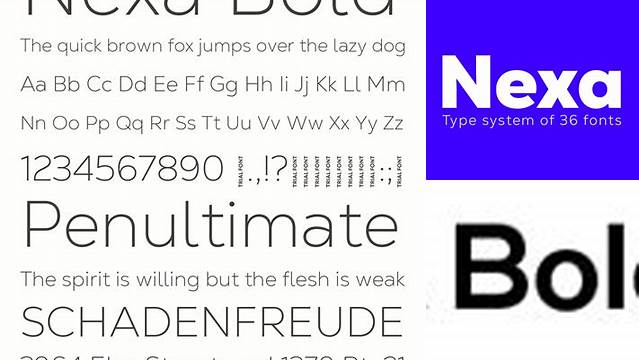
Hey guys! Ever stumbled upon a font and just knew you had to have it? That's how I felt when I first saw Nexa Bold. It's that perfect blend of modern and clean, making it a total standout for everything from headlines to body text. And the best part? You can get a Nexa Bold font free download for Mac! Seriously, who doesn't love a great font without breaking the bank? In this article, we're diving deep into how to snag the Nexa Bold font free download for Mac, where you can use it, and why it's such a fantastic choice for your design projects. So, buckle up, and let's get this font party started!
H2: Why Nexa Bold is the Font You Need (And How to Get It Free for Mac)
So, what makes Nexa Bold so special? Well, for starters, it's incredibly versatile. This font family, known for its sleek and contemporary vibe, seamlessly fits into a wide range of design projects. Whether you're crafting a killer website, designing eye-catching marketing materials, or simply sprucing up your personal documents, Nexa Bold has got you covered. Its clean lines and strong presence make it a go-to choice for grabbing attention and conveying a sense of professionalism. Now, let's talk about the golden ticket: the Nexa Bold font free download for Mac. Finding a reliable source for a free download is crucial. You want to ensure you're getting a legitimate version that's safe to use. Many websites offer the Nexa Bold font free download for Mac, but always double-check the site's reputation and reviews. Look for trusted font platforms or design resources that offer the font as part of a free bundle or through a promotional offer. Once you've found a trustworthy source, the download process is usually straightforward. You'll likely receive a zip file containing the font files. Extract these files, and then you can install the font on your Mac. It's as easy as a few clicks, and boom, Nexa Bold is ready to roll on your Mac! Installing the font involves opening the Font Book application on your Mac and adding the font files. This process integrates the font into your system, allowing you to access it in various applications like Microsoft Word, Adobe Photoshop, and more. Once installed, Nexa Bold becomes a permanent fixture in your font library, ready to elevate your design projects whenever inspiration strikes.
H2: Where to Use Your New Nexa Bold Font (Mac Edition)
Okay, you've got your Nexa Bold font free download for Mac – now what? The possibilities are pretty much endless, guys! This font's versatility means you can use it in a ton of different projects. Let's break down some popular applications and design scenarios. First off, think about your website. Nexa Bold is a fantastic choice for headlines, subheadings, and even body text. It provides a clean, modern look that's super readable. Plus, it works great on both desktop and mobile, ensuring a consistent visual experience for your users. Next up, consider all your marketing materials. Brochures, flyers, posters, and social media graphics – Nexa Bold can bring a touch of sophistication to all of them. Its strong presence makes it ideal for grabbing attention and highlighting important information. For those of you into content creation, Nexa Bold is a winner for creating visually appealing documents. Think reports, presentations, and ebooks. It's easy to read and lends a professional touch to your written content. If you're a student, you can totally use the Nexa Bold font free download for Mac for your assignments and projects. It will add a touch of elegance to your documents, making them look polished and professional. For anyone working with graphic design software, like Adobe Photoshop or Illustrator, Nexa Bold is a total must-have. It’s great for creating logos, icons, and other design elements that need a modern, clean aesthetic. Even for personal use, you can use Nexa Bold to create stylish invitations, greeting cards, or even personalize your email signatures. The font’s versatility and readability make it perfect for various creative endeavors. So, once you've secured your Nexa Bold font free download for Mac, get creative and experiment!
H2: Comparing Nexa Bold to Similar Free Fonts
So, you're on the hunt for the Nexa Bold font free download for Mac, but what if it's not quite the right fit? There are tons of other awesome fonts out there. Let's take a look at some similar free fonts that could be great alternatives. One popular option is Montserrat. Much like Nexa Bold, Montserrat is a geometric sans-serif font, known for its clean and modern feel. It's also super versatile and works well in various design applications. Another great alternative is Open Sans. This font is very readable and perfect for both headlines and body text, and it is a great option for websites and long-form content. Next up, we have Lato. Known for its friendly and approachable look, Lato is also a sans-serif font, that's excellent for creating a sense of warmth in your designs. Then there's Roboto. Roboto is a versatile font created by Google, designed to be readable and work well across different devices and applications. Also, check out Poppins. This font is another geometric sans-serif that’s known for its clear and modern appearance. It’s excellent for both headings and body text. When deciding which font is right for your project, think about your overall design goals. Consider the mood you want to create and the readability needed for the project. Also, think about the specific characteristics of each font. For instance, some fonts may be bolder, while others may be more delicate. Check the various font weights and styles available. Most font families offer different weights, such as light, regular, bold, and black, and styles, like italic, to provide a wide range of design choices. And lastly, think about compatibility. Ensure that the font you choose is compatible with the software and devices you will be using.
H2: Installing and Managing Fonts on Your Mac: Beyond Nexa Bold
So, you've got your Nexa Bold font free download for Mac, but how do you get the most out of your font collection on your Mac? Let's talk about managing and installing fonts. As we mentioned before, the Font Book app is your best friend. It comes pre-installed on your Mac. You can add fonts by dragging font files (TTF or OTF) into the app, or by using the “+” button to select font files. Font Book lets you easily browse, preview, and organize all your fonts. You can also create font collections to group fonts by style, project, or any way that helps you stay organized. Beyond Font Book, there are other ways to manage your fonts. Some designers like using dedicated font management software, like FontExplorer X or RightFont. These tools offer advanced features, such as font activation and deactivation, conflict resolution, and organization, but aren’t necessary for casual users. Another great feature is the ability to preview fonts easily. You can view the font's various styles, weights, and characters. Most font managers and Font Book provide options for previewing fonts in different sizes and contexts, making it easy to see how each font will look in your designs. And most importantly, make sure you know how to handle font conflicts. Font conflicts can sometimes occur when you install multiple versions of the same font. Font Book will usually detect conflicts and help you resolve them by choosing which version to keep. Always keep your fonts organized and backed up. Backing up your fonts ensures you won’t lose them if you experience a system crash or data loss. Also, consider where you store your fonts. Create a dedicated folder in your computer's drive to keep them organized. And lastly, make sure you are keeping an eye out for updates. Some fonts get updated to fix bugs or add new features. Make sure you update your font as needed. This helps ensure that your font works correctly with the latest versions of your software.
H2: Resources and Further Reading on Typography and Font Design
You’ve got your Nexa Bold font free download for Mac, and you are ready to keep learning? Let's explore some resources for further reading on typography and font design. One of the best places to start is by checking out books on typography. These books can provide a solid foundation in typography principles and design. Consider websites and online courses. Websites, like Behance, Dribbble, and Skillshare, offer articles, tutorials, and courses on typography. These online resources are a great way to learn new skills and techniques. There are many font-related blogs to explore. Read articles and reviews on font design and typography. These blogs are valuable resources for staying on top of trends. Explore font foundries and their websites. Font foundries often provide valuable information on the fonts they offer, including their history, design process, and best uses. There are also online typography communities. Participate in these online communities to learn from other designers, share your work, and ask questions. Check out the official documentation for Nexa Bold. This documentation may offer details on the font's design, history, and usage. And don't forget to always keep experimenting. The more you learn and experiment, the more you’ll improve your skills. By exploring these resources, you can take your typography knowledge and use your Nexa Bold font free download for Mac to a new level.